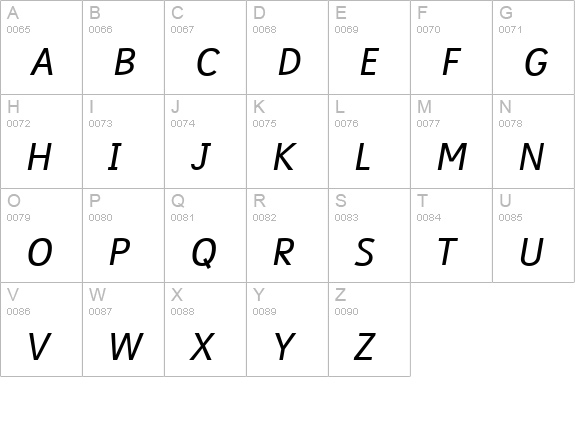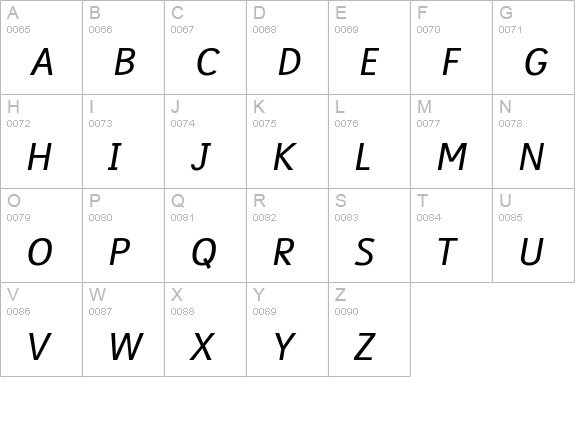
Folder Italic Font Details
Folder Italic is a distinctive, italic variant in the Folder typeface family \xE2\x80\x94 well suited to design and typography projects.
Folder Italic font is a sleek and elegant typeface that adds a touch of sophistication to any design project. Its slanted and italicized style exudes a modern and stylish vibe, making it perfect for headings, logos, and other creative applications. The subtle curves and clean lines of Folder Italic create a harmonious balance between professionalism and creativity. This versatile font is ideal for both digital and print projects, adding a sophisticated flair to any design. Best of all, Folder Italic font is available for free download at FontsMarket.com. This means you can easily access this stunning typeface without any cost, making it a valuable addition to your font collection. Whether you're a graphic designer, a web developer, or simply someone looking to enhance your projects with a touch of elegance, Folder Italic font is the perfect choice. Download it today and elevate your designs with this stylish and modern typeface.